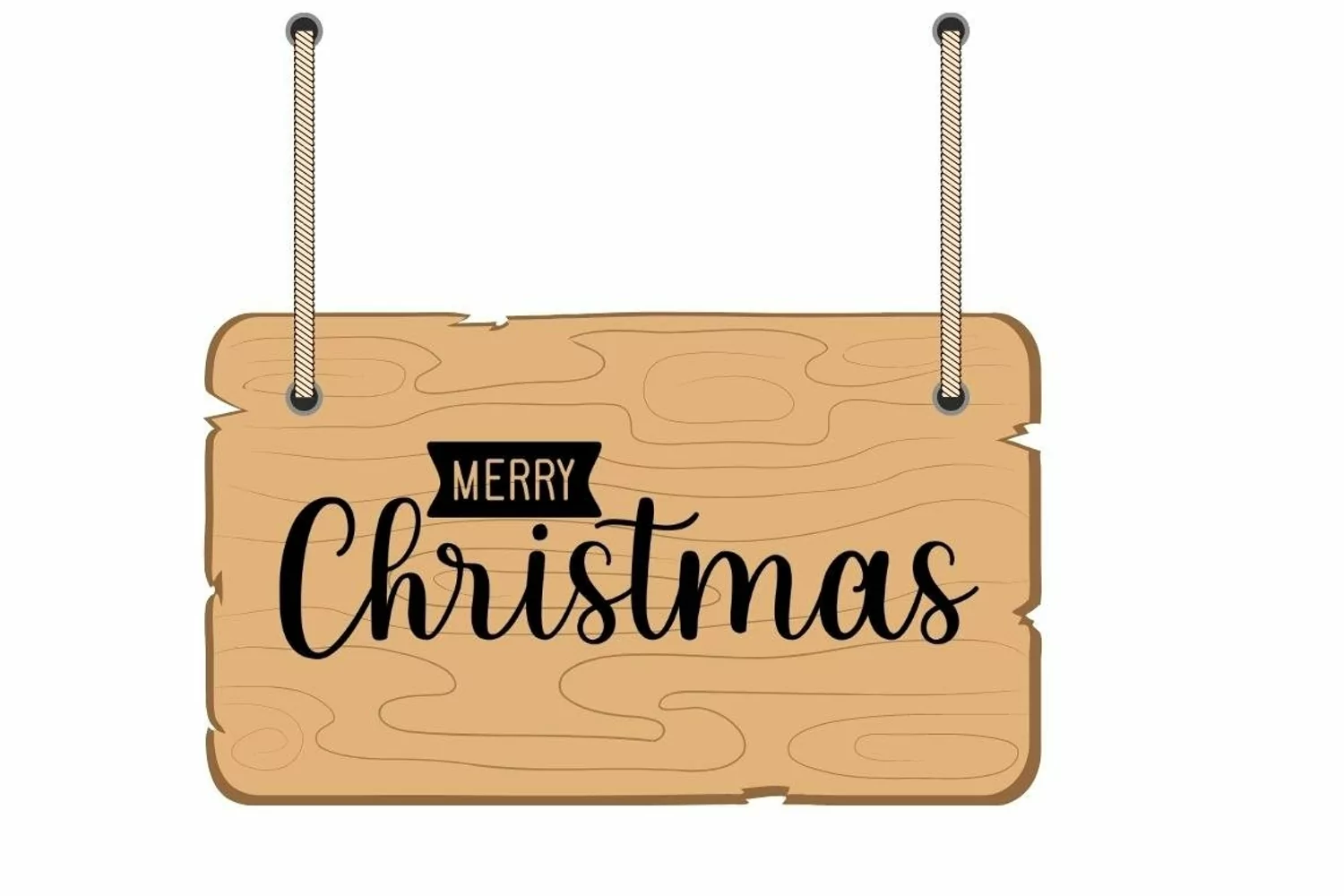
Marriage Script - Handwritten Script Font
Right Away is a beautiful and refined script font. It has a classy, elegant and modern look that can be used for logos, branding, invitations, stationery, wedding designs, social media posts, and much more!